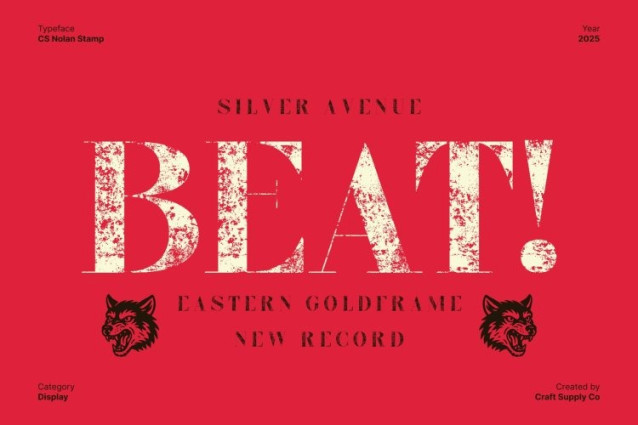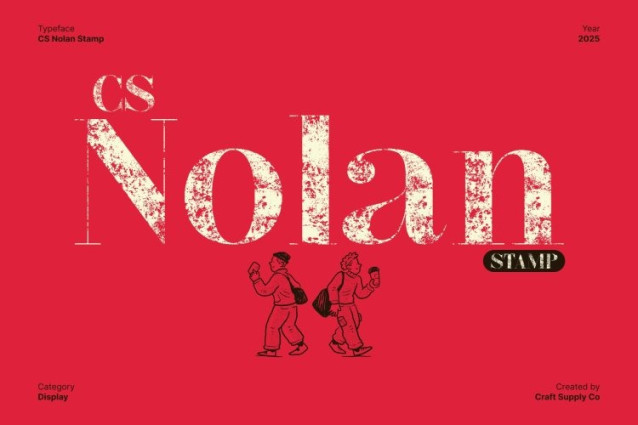
CS Nolan Stamp Font
CS Nolan Stamp Font This is a modern classic serif font designed to deliver elegance, refinement, and visual charm. Its clean, contemporary serif construction brings a polished and sophisticated appearance, making it ideal for designers who seek a balance between modern precision and timeless warmth.
Refined Modern Serif Structure for Professional Appeal
Built with clarity and refinement in mind, this font uses a modern serif structure that enhances legibility and sophistication. The well-proportioned letterforms create a smooth reading experience, while the classic serif details strengthen its professional and editorial tone. Whether used for branding, magazines, or packaging, this font delivers a clean yet expressive impression that resonates with contemporary aesthetics.
Vintage Stamp Texture for Authentic, Crafted Style
The defining feature of this font is its attractive stamp effect, which brings a handcrafted, worn texture to the elegant serif design. This contrast between clean forms and organic roughness gives the font a captivating dual personality. The effect adds depth, warmth, and authenticity ideal for vintage branding, rustic logos, retro posters, boutique labels, or anything that wants to feel lived-in and artisanal.
Versatile and Ideal for Branding, Editorials, and Display Designs
This font’s blend of classic elegance and stamped texture makes it highly versatile for both modern and retro-inspired design directions. It performs beautifully in headlines, logotypes, packaging, invitations, signage, and editorial displays.